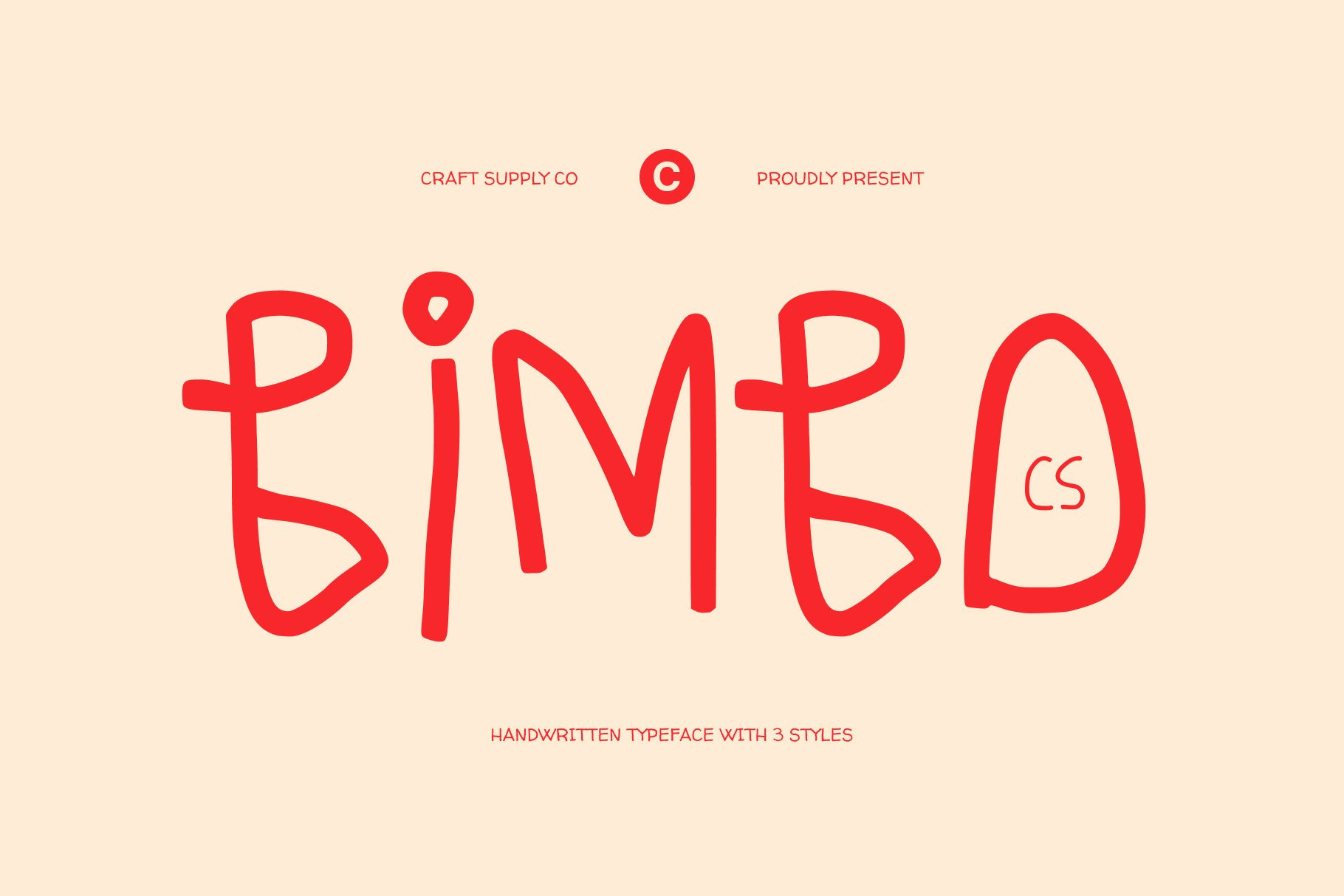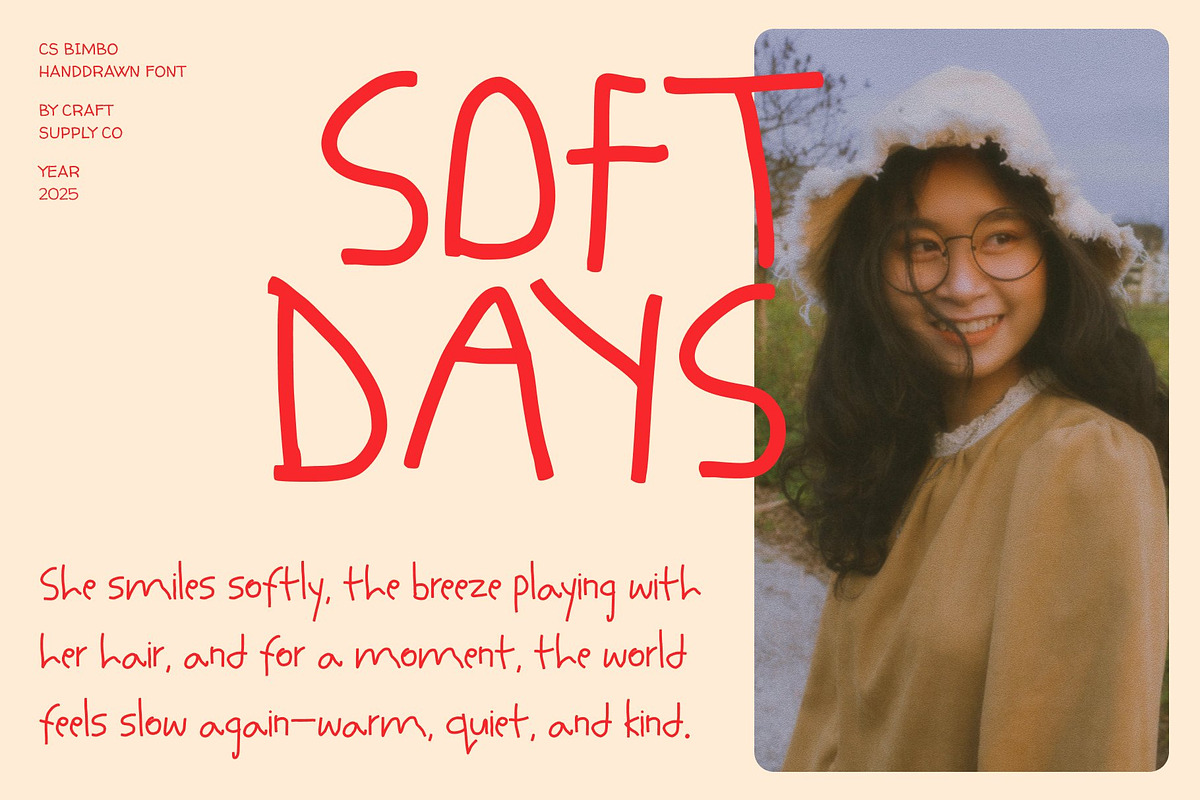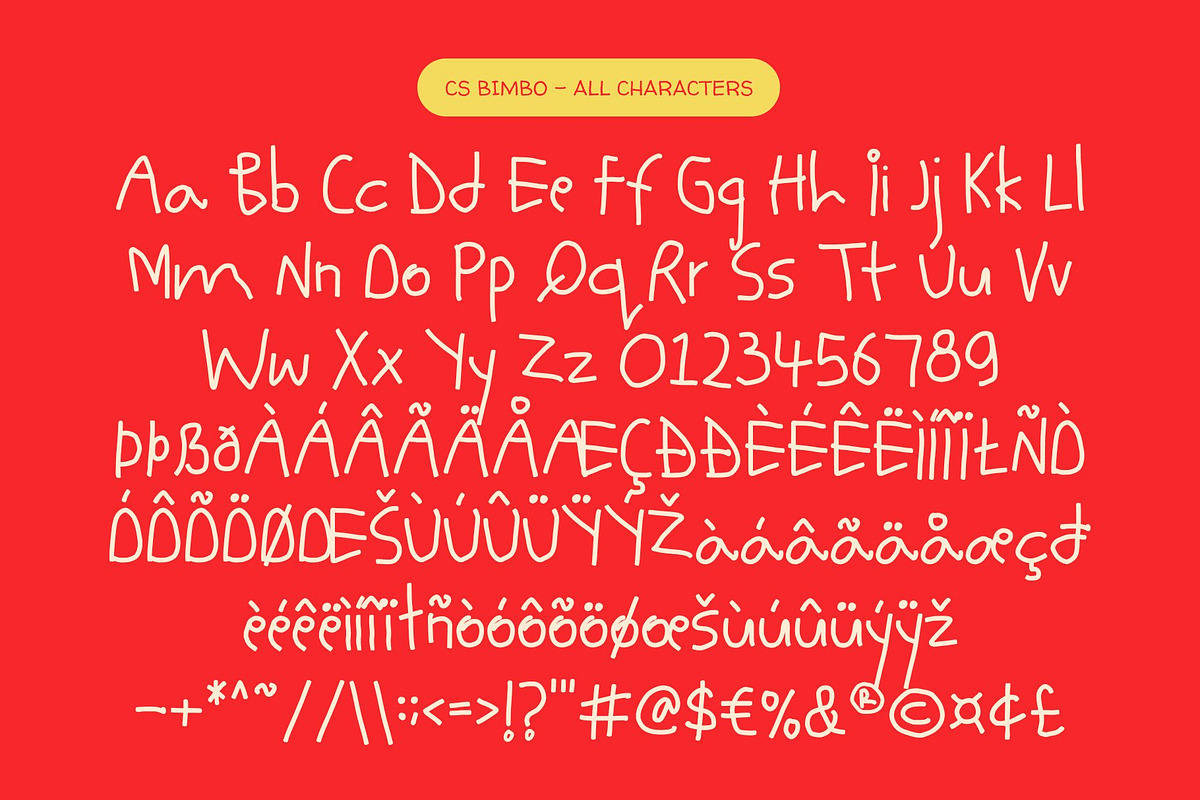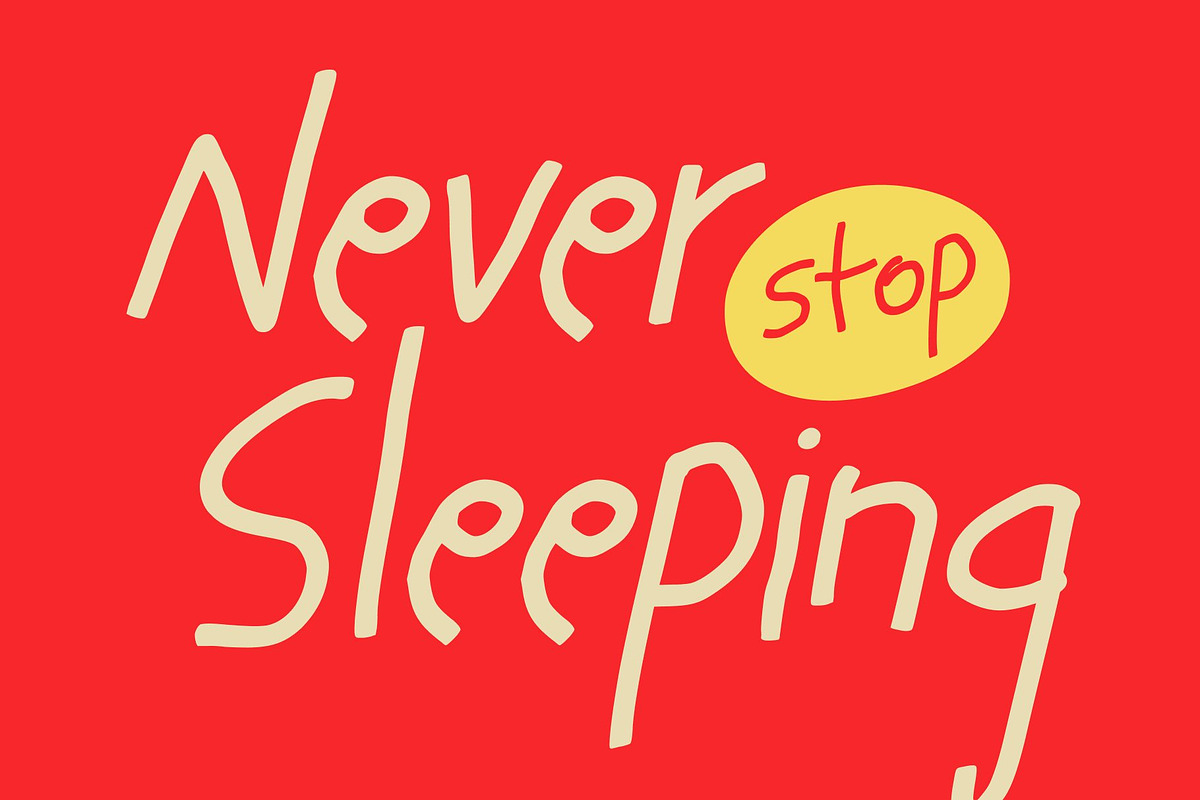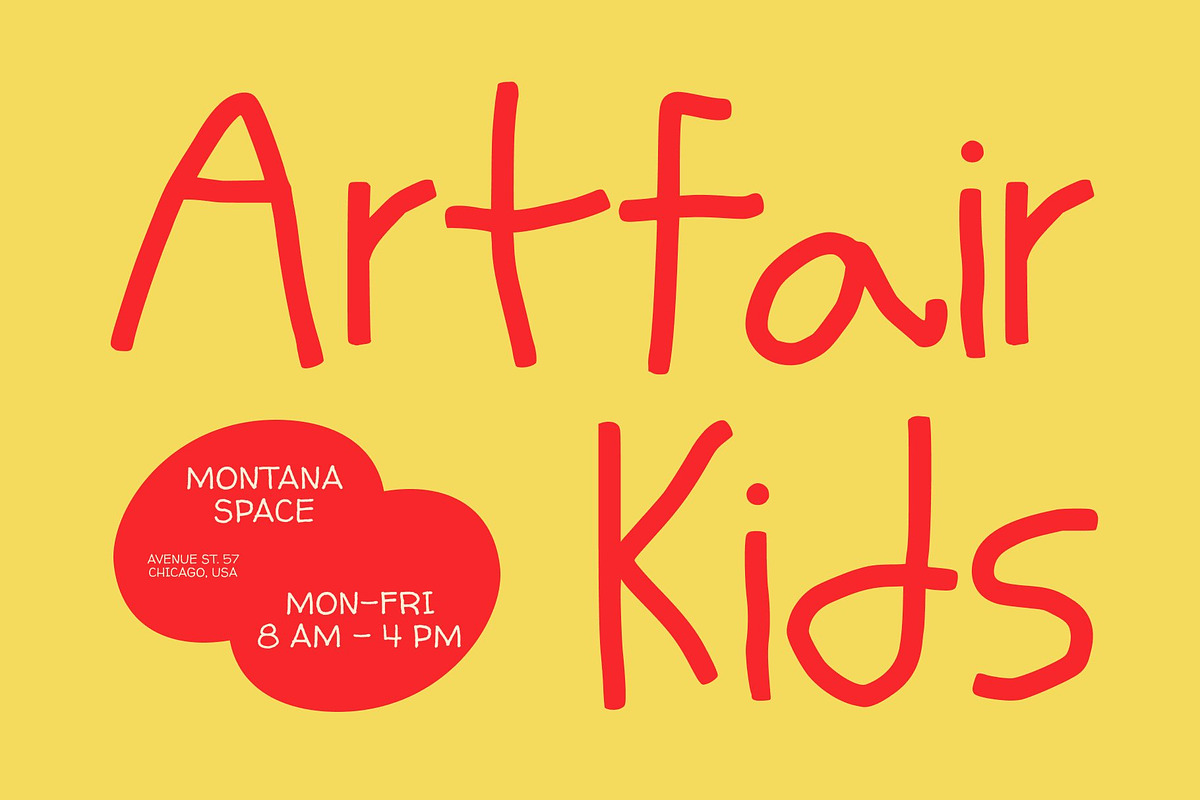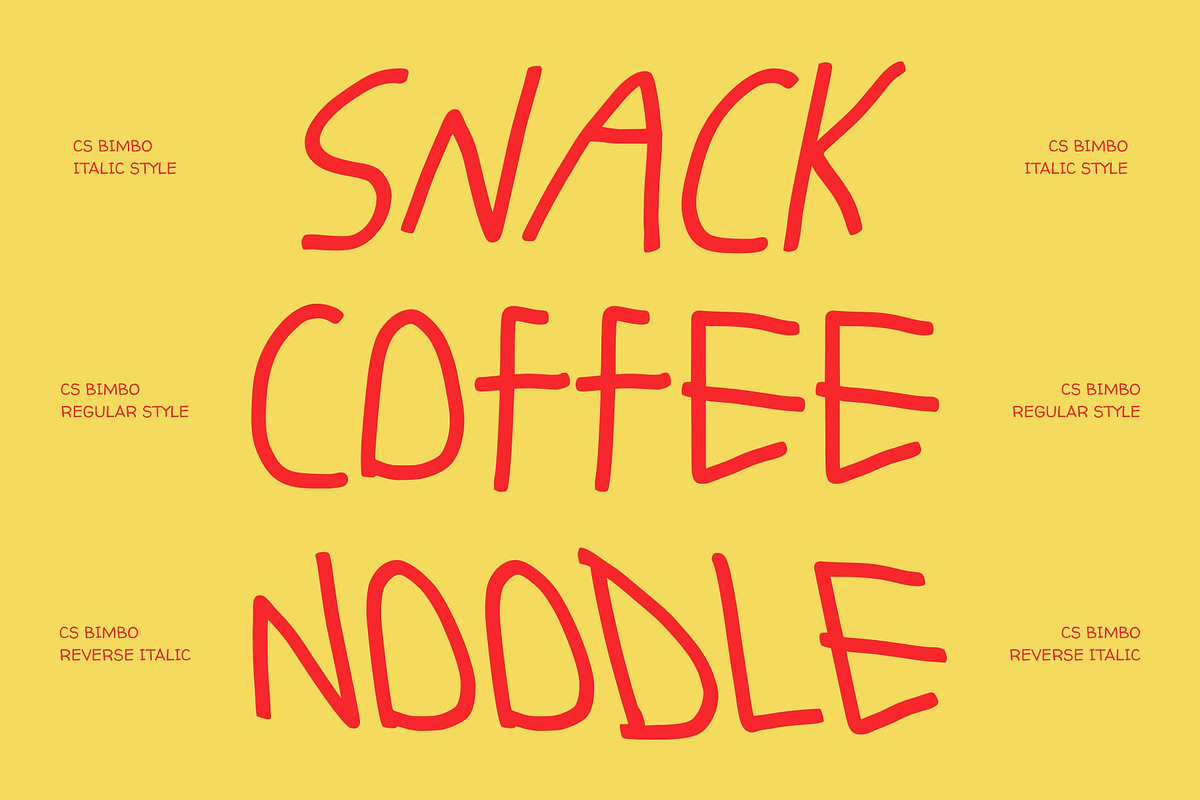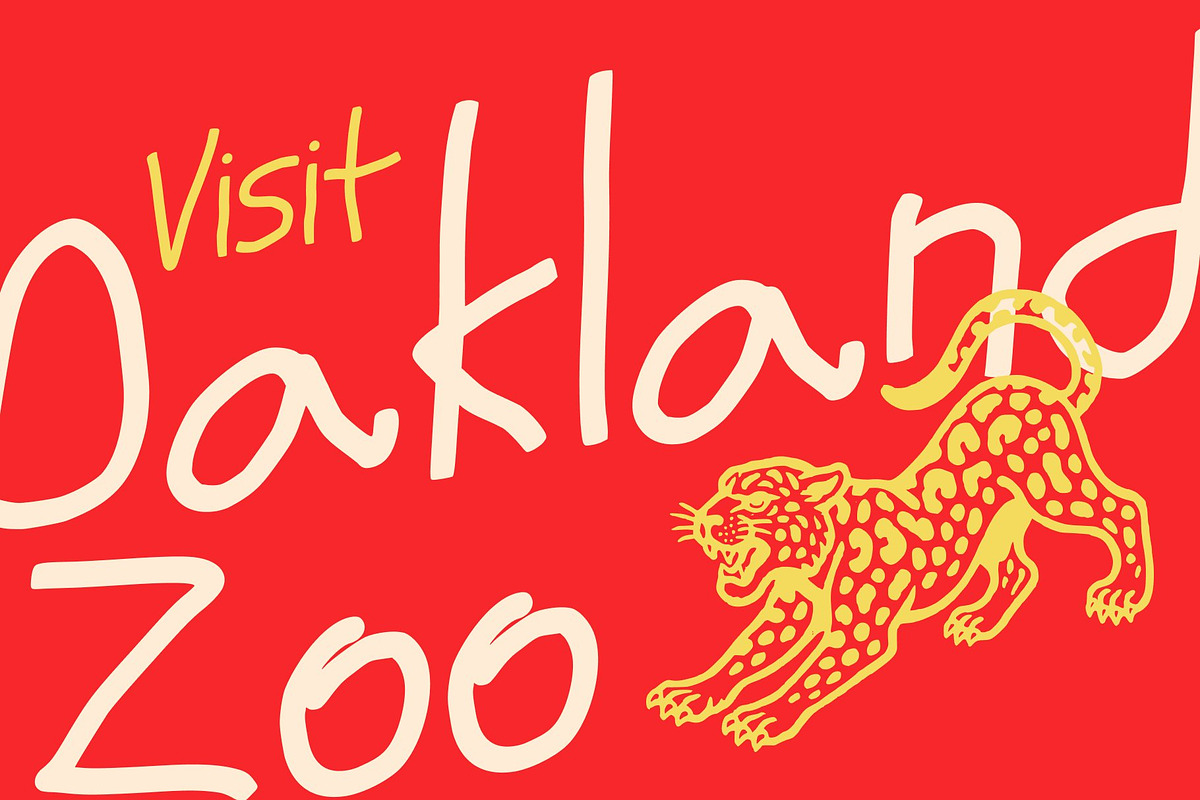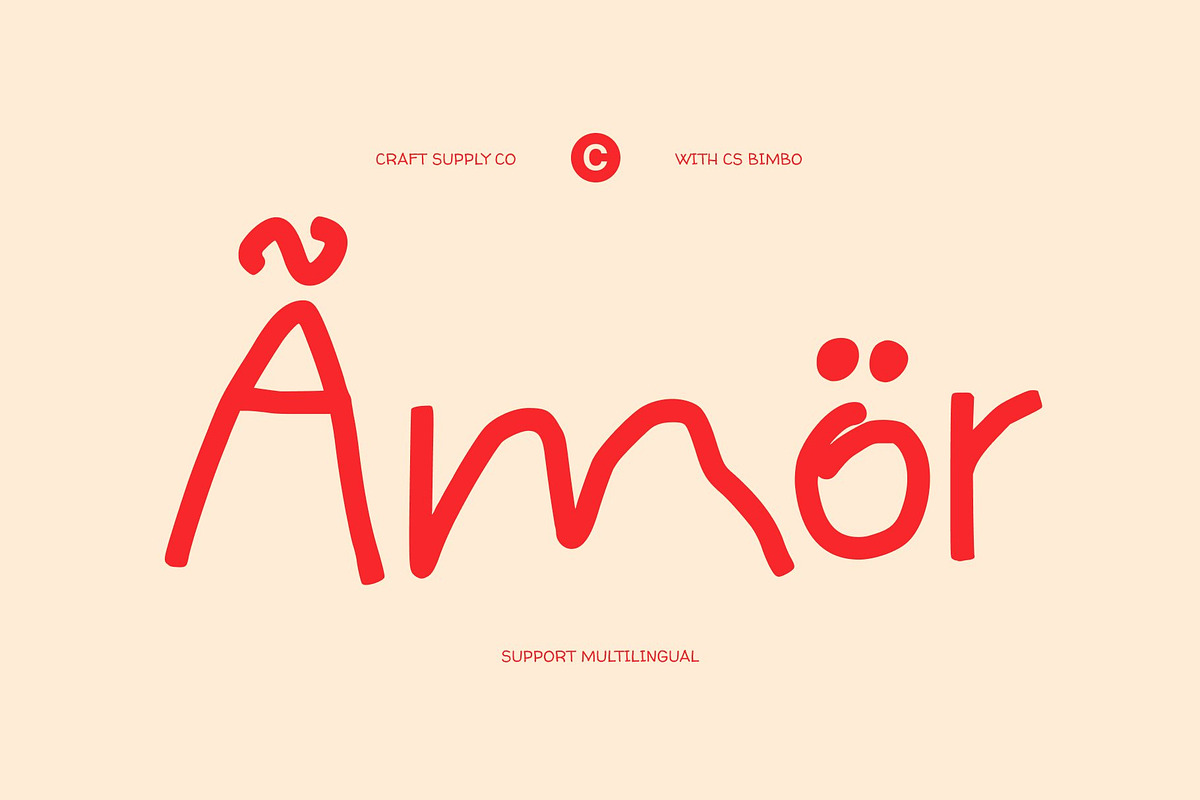
CS Bimbo – Messy Handwritten Font
CS Bimbo – Playful Chaos with Scribbled Charm
Messy Display Font with Irregular Personality This is a gritty yet stylish messy font that embraces imperfection as its defining feature. Designed to look irregular and freely scribbled, it brings a sense of spontaneity and creativity to every design, turning chaos into character.
Raw, Handcrafted Energy Each letter in this font carries the texture of hand-drawn strokes and uneven lines, creating a natural, unpolished charm. Its raw aesthetic evokes a sense of fun and authenticity perfect for projects that celebrate creativity without boundaries.
Quirky and Expressive Style This font’s playful irregularity makes it ideal for designs that aim to feel energetic, youthful, and original. Its imperfect beauty adds warmth and personality, making it stand out in both digital and print contexts.
Perfect for Fun and Creative Projects Whether used for children’s writing designs, quirky branding, or playful illustrations, this font delivers a carefree and expressive vibe. It’s the perfect font for designers who want to capture spontaneity, imagination, and artistic flair.